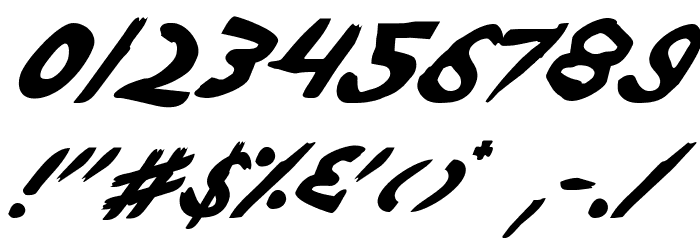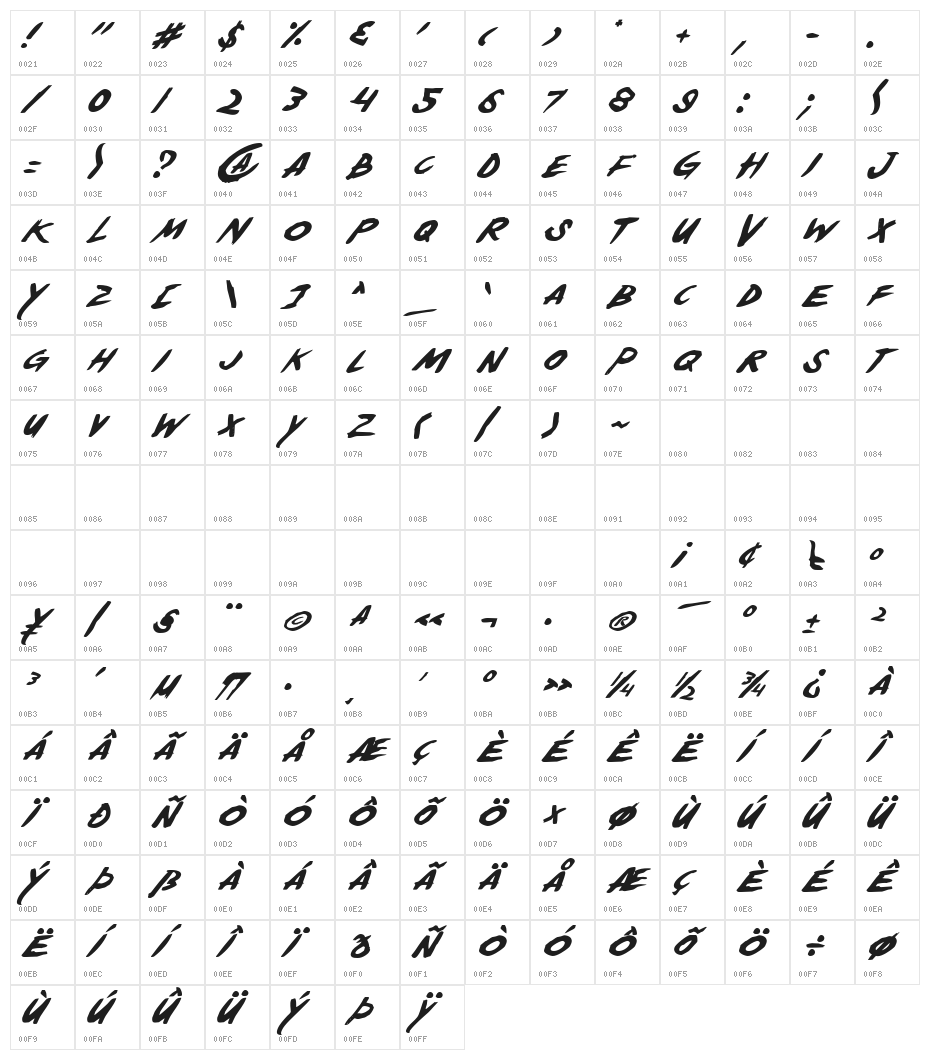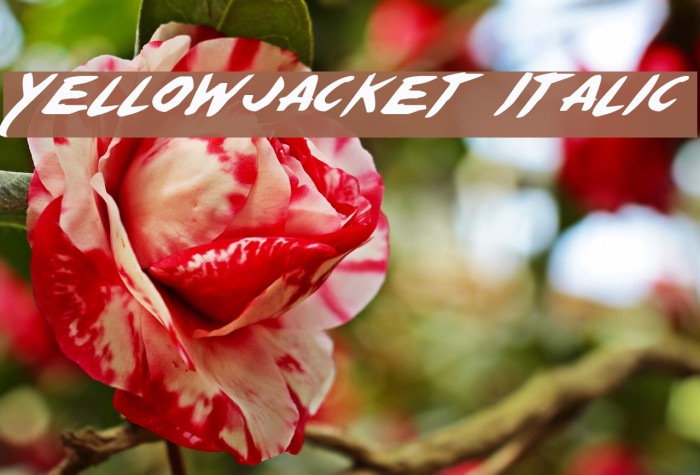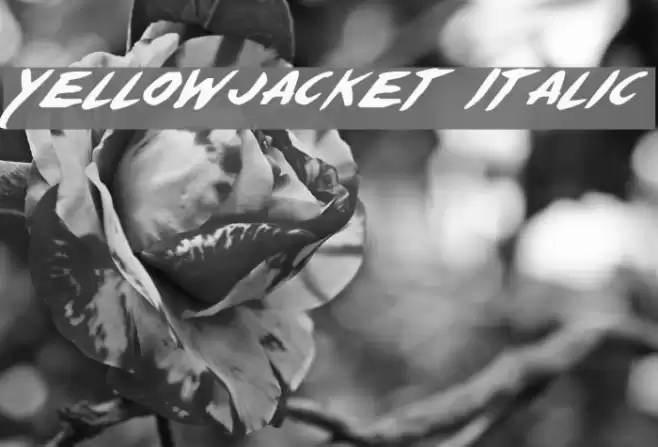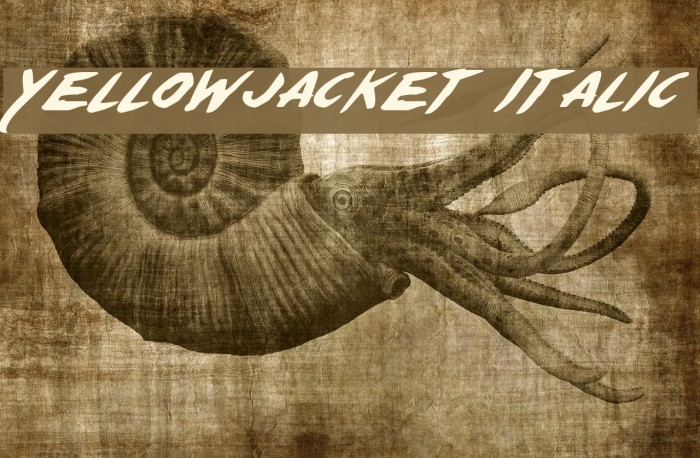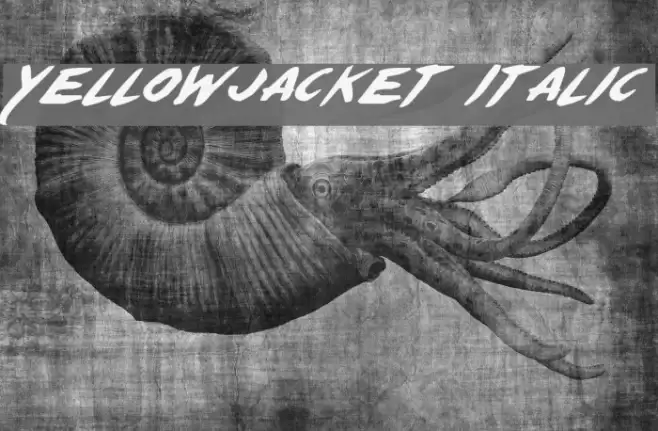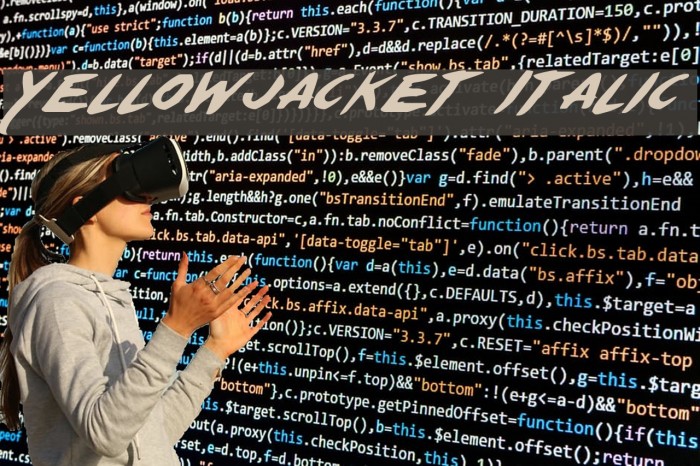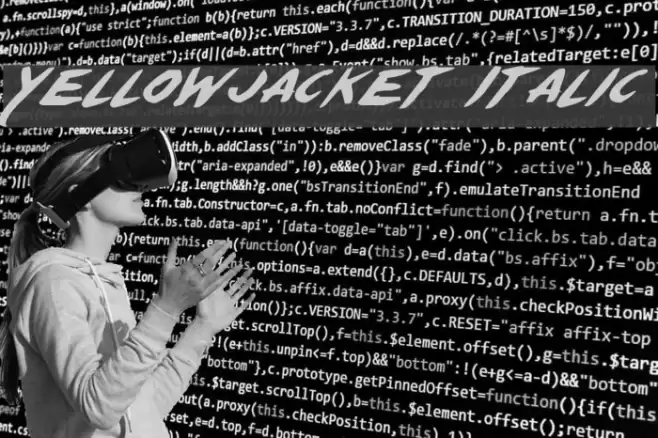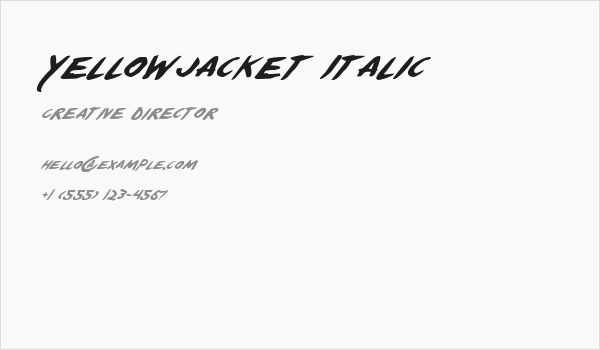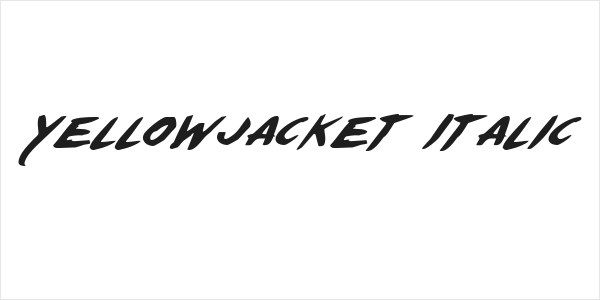
Yellowjacket Italic Font
Yellowjacket Italic Description
This font exudes a bold and energetic style, characterized by its slanted, italicized form that suggests movement and dynamism. The letters are thick and robust, with a brush-like texture that gives it a hand-painted appearance. The uppercase and lowercase letters maintain a consistent style, with smooth curves and sharp edges that enhance its lively and expressive nature. The numbers and special characters follow the same aesthetic, ensuring a cohesive look across all elements. This font is perfect for projects that require a strong, impactful presence.